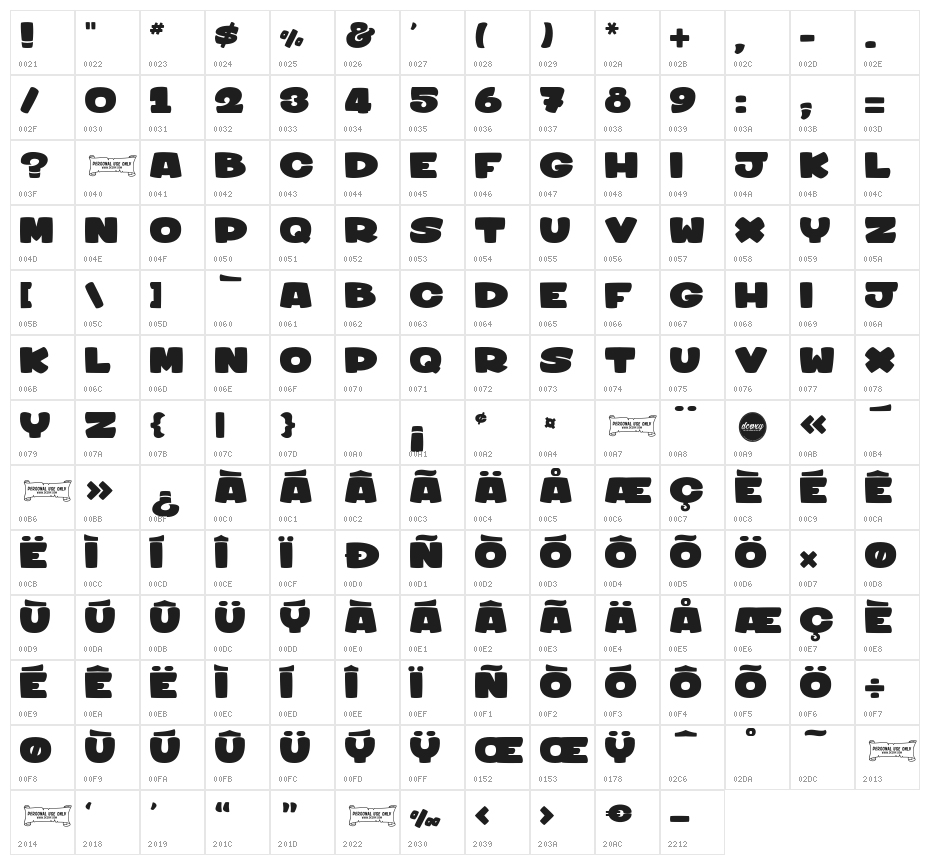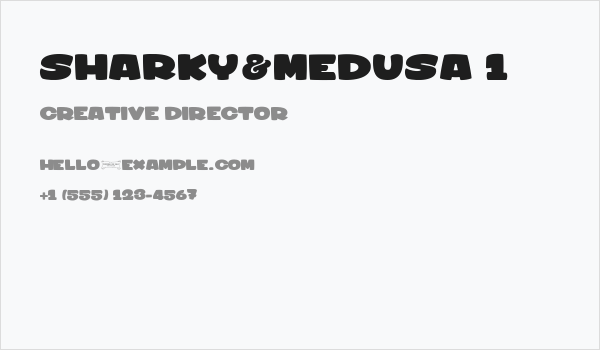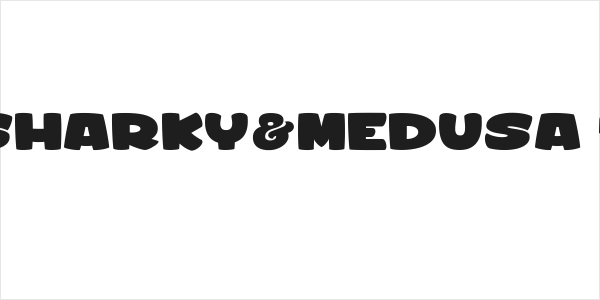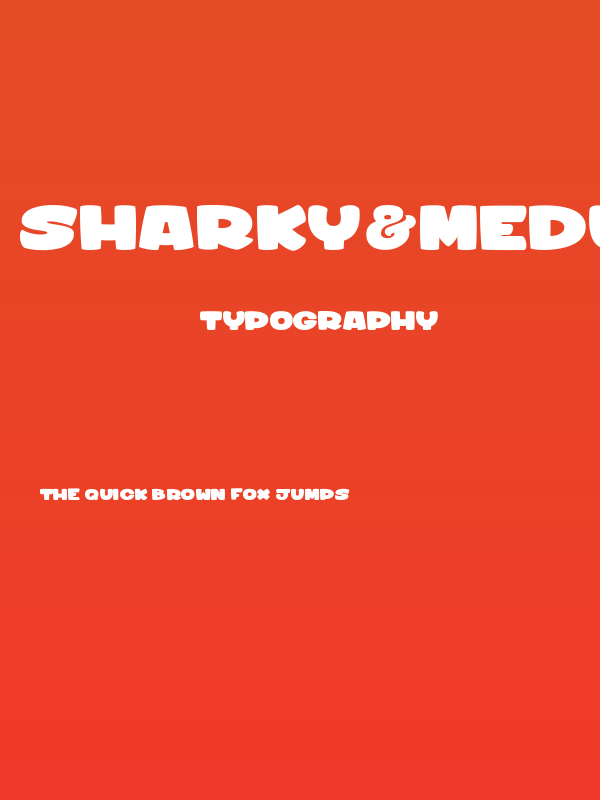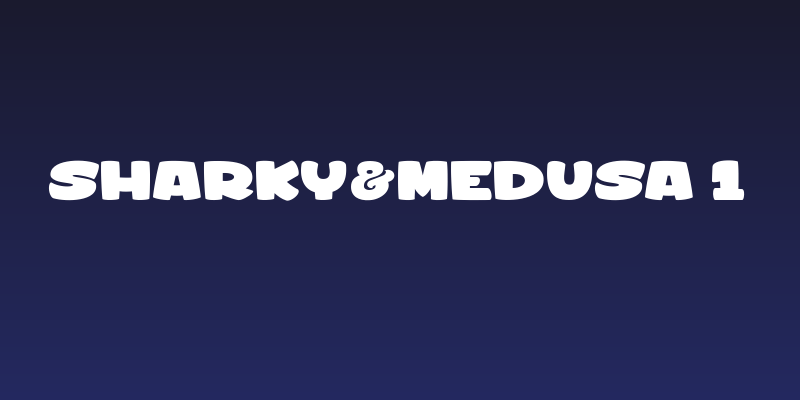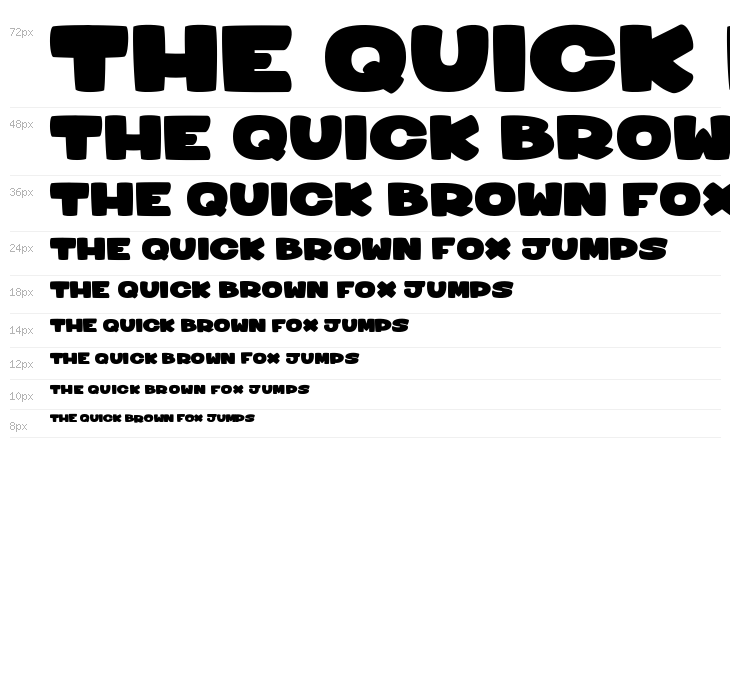
sharky&medusa 1 Font
sharky&medusa 1 Description
This font features bold, rounded characters with a playful and chunky appearance. The letters are uniformly thick, giving a strong and impactful look. The rounded edges and smooth curves contribute to a friendly and approachable style, making it suitable for attention-grabbing designs. The numbers and special characters maintain the same boldness and rounded style, ensuring consistency across all elements. This font is ideal for projects that require a fun and lively touch, such as children's books, posters, or branding for playful products.
Overall StylePlayful, Fun
Proposed ProjectsIdeal for children's books, playful branding, posters, and any design needing a fun, lively touch.